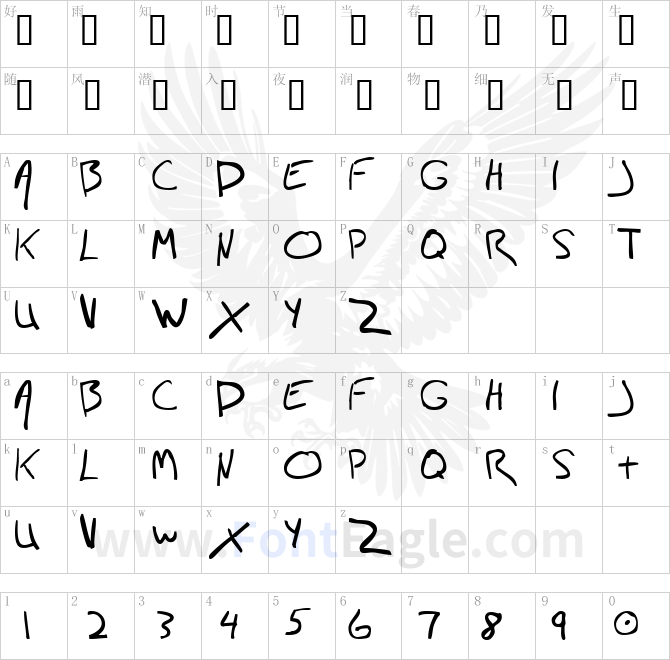
- Font name:Jon
- Font Subfamily ID:Macromedia Fontographer 4.1.2 Jon
- Font Full Name:Jon
- Font Version:Macromedia Fontographer 4.1.2 4/13/96
- Postscript:Jon
- Font Copyright:© 1997 Copyright [Clearlight Fonts] Brad Barham‐‐‐‐‐‐‐‐‐‐‐‐‐‐‐‐‐‐‐‐‐‐‐‐‐‐‐‐‐‐ This is Jon Ingham’s handwriting. He drew the character set on the back of his worksheet with a magik marker during American History. I gave him my worksheet for it.